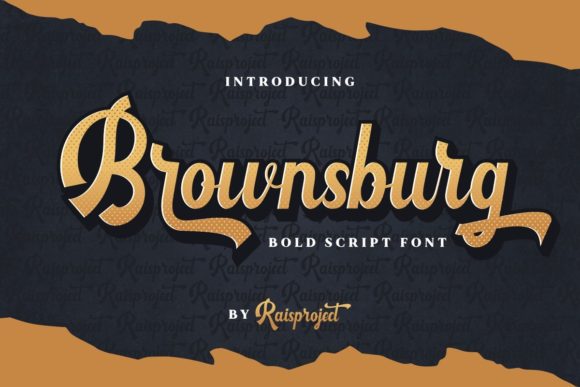
The Designer’s Delight: Uncovering the Charm of Brownsburg Font
I’ll never forget the struggle I faced while working on a branding project for a vintage-inspired cafe. My client wanted a logo that screamed “retro-chic,” but I was stuck in a font rut. That was until I stumbled upon Brownsburg Font, a bold script font that instantly transported me to the bygone era of classic typography. In this article, I’ll share my love affair with Brownsburg Font, its unique features, and how you can make the most of it in your designs.
A First Impression: What Makes Brownsburg Font Special
Brownsburg Font is more than just a pretty face; it’s a versatile tool that can elevate your designs from ordinary to extraordinary. Here are a few reasons why I’m hooked:
- ✨ Retro charm: Brownsburg Font boasts a distinctive retro style that’s perfect for creating eye-catching logos, branding materials, and quotes.
- ✅ Unique letterforms: Each letter has a beautiful, one-of-a-kind touch that adds a touch of elegance to your designs.
- 🔥 PUA encoded: With PUA encoding, you can easily access a wide range of glyphs and ligatures, giving you endless creative possibilities.
The Honest Review: Weighing the Pros and Cons
- ✨ The font’s retro vibe is perfect for designs that require a touch of nostalgia.
- ✅ The unique letterforms add a level of sophistication to any design.
- 💡 The PUA encoding makes it easy to experiment with different glyphs and ligatures.
While Brownsburg Font is an excellent choice for many designs, there are a few things to keep in mind:
- ⚠️ Legibility at small sizes: As with many script fonts, Brownsburg Font can be tricky to read at very small sizes. Make sure to test it in different contexts to ensure it works for your project.
- 🤔 Pairing with other fonts: Due to its bold, statement-making nature, Brownsburg Font can be challenging to pair with other fonts. Experiment with different combinations to find the perfect match.
The Designer Inspiration Behind Brownsburg Font
While the true story behind Brownsburg Font’s creation is unknown, it’s easy to imagine that its designer was inspired by the classic typography of the past. Perhaps they spent hours pouring over vintage posters, typography books, and classic films, distilling the essence of retro style into this beautiful font.
A: PUA (Private Use Area) encoding allows font creators to include additional glyphs and characters that aren’t part of the standard Unicode range. This means you can access a wider range of characters, ligatures, and glyphs, giving you more creative freedom.
Q: How do I pair Brownsburg Font with other fonts?
A: Pairing Brownsburg Font with other fonts requires some experimentation. Try combining it with clean sans-serifs, elegant serifs, or even other script fonts to create a unique visual identity.